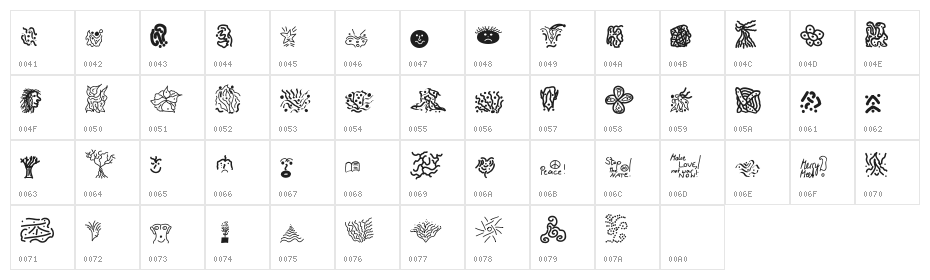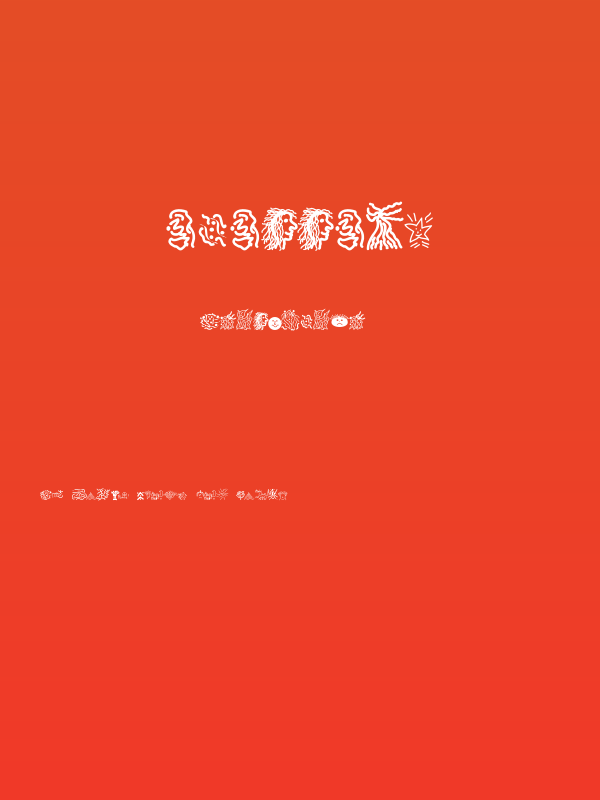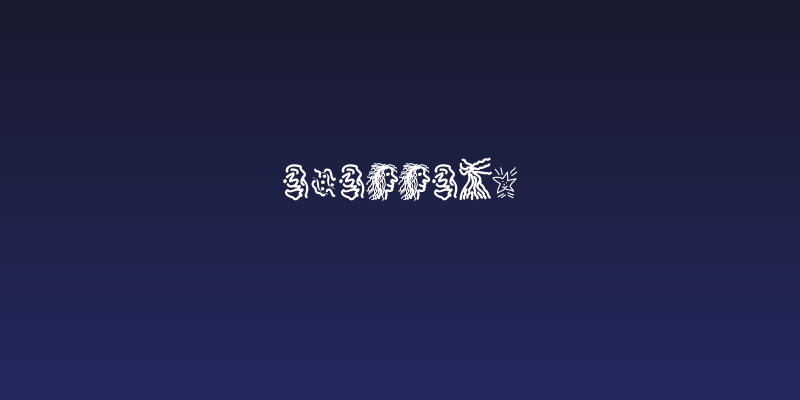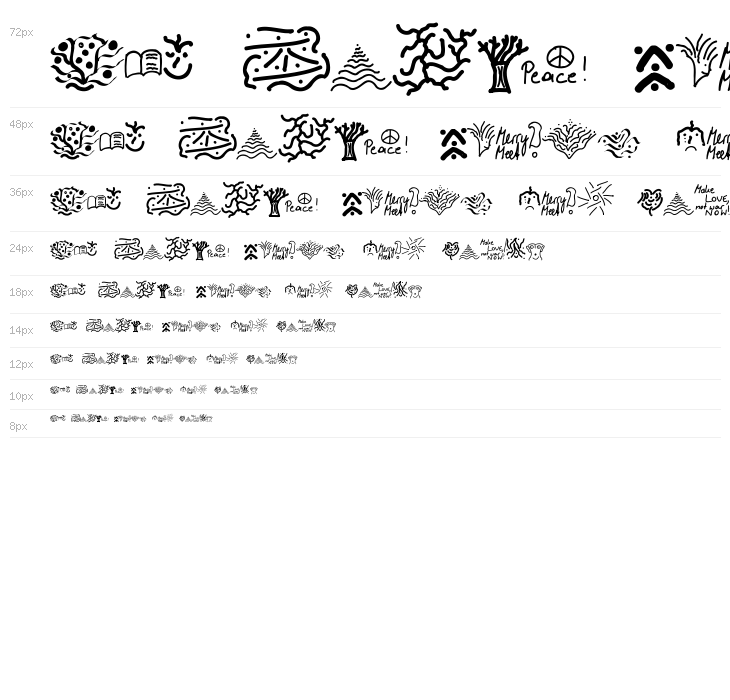
DaDoodle Font
| Gesamtstil | Artistic, Playful, Whimsical |
| Anwendungsfall | Artistic projects, Decorative elements, Illustrations |
| Vorgeschlagene Projekte | Ideal for creative projects such as art posters, unique invitations, children's book illustrations, or any design that benefits from a playful and artistic touch. |